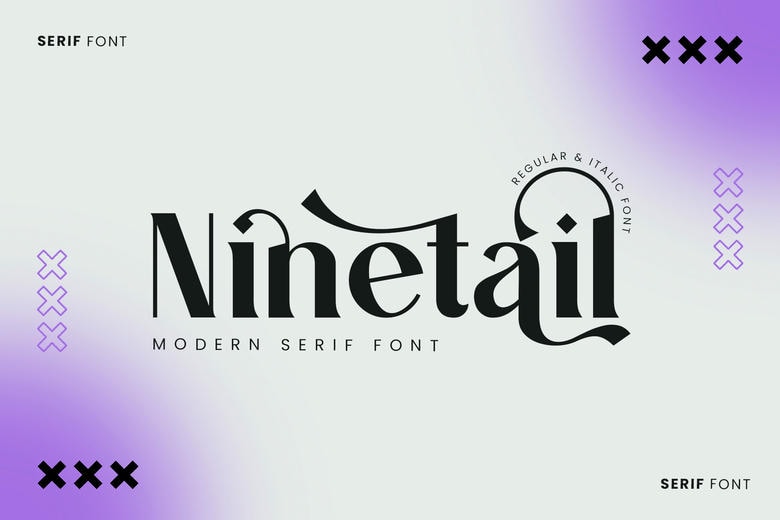
Ninetail Font
Ninetail is a balanced, smooth, elegant and stylish serif font. He has a beautiful character. It fits perfectly with invitation card designs, company logos, movie titles, movie names, business cards, book titles, brand names and various other designs. Ninetail Serif font duo is a subtle serif font that exudes sophistication and elegance. Its stylish alternations and ligatures make this font the perfect partner for any project.
Ninetail Serif Font